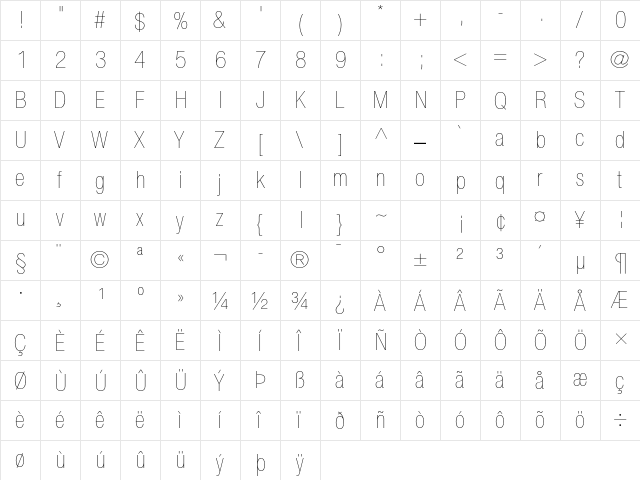
Helvetica Neue LT Std 27 Ultra Light Condensed Font Preview
| Designer | Linotype Staff |
Design Context for Helvetica Neue LT Std Typeface
Helvetica Neue LT Std is a composed and adaptable typeface that performs quietly and consistently across a wide range of design contexts. The delicate stroke weight brings airiness and refinement to layouts. The condensed width makes it efficient for tight spaces without sacrificing legibility.